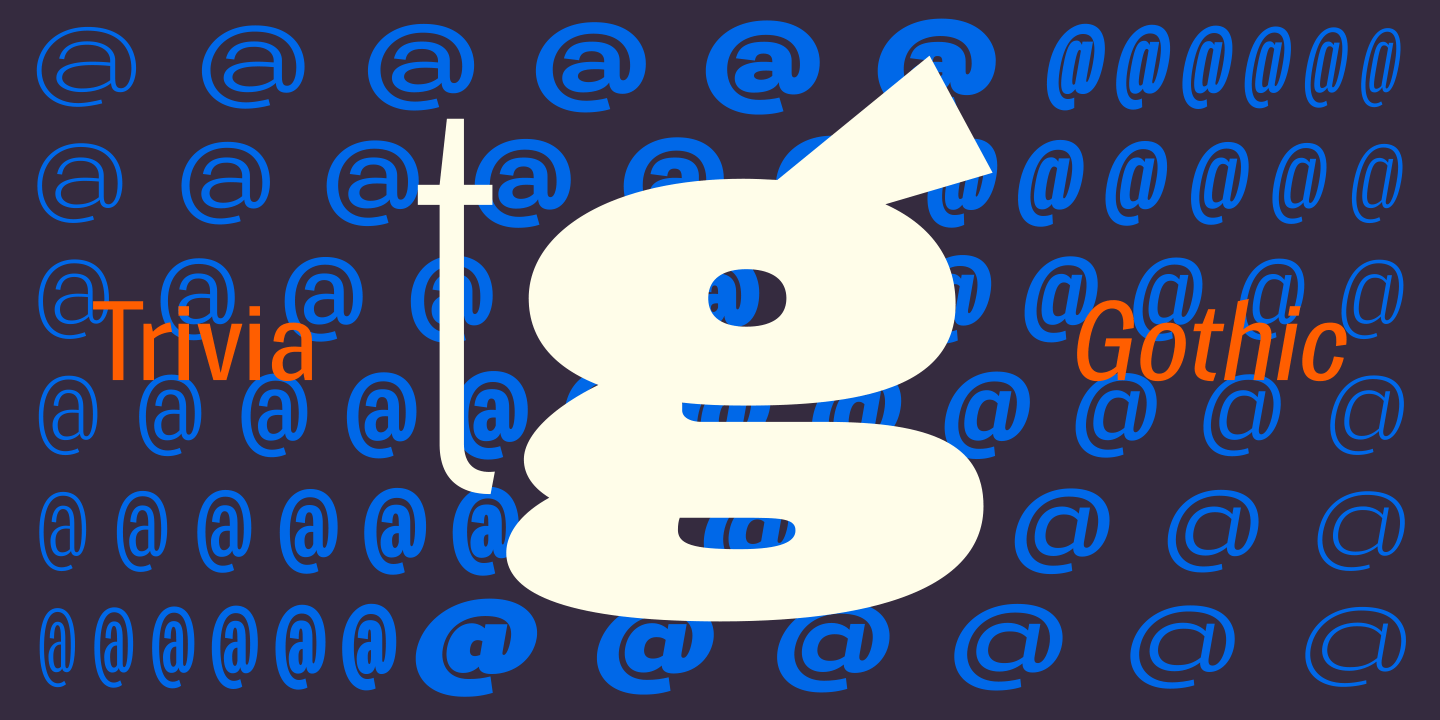
Trivia Gothic Font Free Download – Clean Contemporary Sans-Serif with Personality
Discover the perfect balance of professionalism and character with the Trivia Gothic Font Free Download, a versatile neo-grotesque sans-serif that combines modern minimalism with subtle warmth. Ideal for branding, editorial design, and UI/UX projects needing both clarity and style.
Why Choose Trivia Gothic Font?
The Trivia Gothic Font Free Download delivers refined functionality with:
Humanist Touches – Subtle organic curves in geometric forms
Digital Optimization – Perfect legibility on screens
Tonal Range – Multiple weights from hairline to black
Corporate identity systems
Mobile app interfaces
Editorial body text
Academic publications
Sophisticated packaging
Key Features
8 Weights + Matching Italics – Complete typographic palette
OpenType Features – Ligatures and alternates
Extended Language Support – 50+ Latin-based languages
Design Applications
Clean annual report typography
Modern wayfinding systems
Accessible website text
Pro Tip:
Pair with a warm serif for editorial contrast
Use Medium weight for optimal screen readability
Combine tight letter-spacing in headlines with open spacing in body text
Designer Note: The Light weight works beautifully overlayed on photography.
Where clarity meets character.